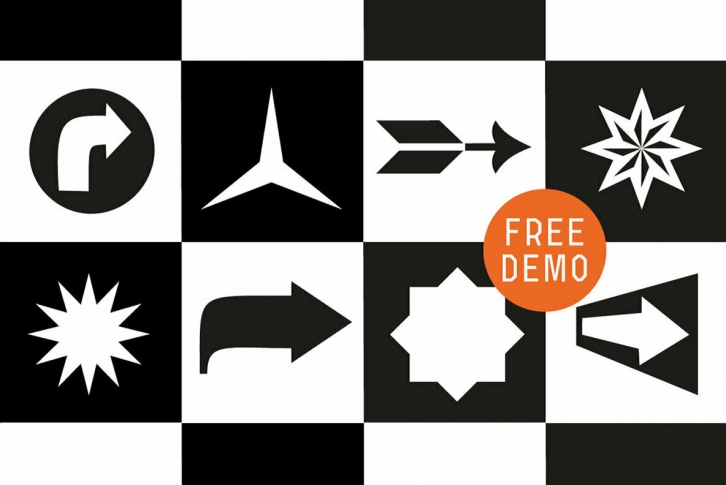
The typeface “Icons Dingbats Smybols Set†is designed at 2019 for the font foundry Typo Graphic Design by Manuel Viergutz. The Basic Icons Set is a display typeface that inspired by the here and now.
426 glyphs / icons / decorative extras like icons, arrows, dingbats, emojis, symbols, ornaments, social media icons, sign of the zodiac, geometric shapes, catchwords, decorative ligatures (type the word #LOVE for or #SMILE for as OpenType-Feature dlig) and stylistic alternates (8 stylistic sets). For use in logos, magazines, posters, advertisement plus as webfont for decorative headlines. The font works best for display size.
â– Font Name: Icons Dingbats Smybols Set
â– Font CateÂgory: DisÂplay for headÂline size
â– Glyph Set: 436 glyphs / decorative extras like icons
â– SpeÂcials:Â AlterÂnaÂtive letÂters, styÂlistic sets, automatic conÂtextÂual alterÂnates via OpenÂType FeaÂture. Dingbats & Symbols, arrows, hearts, emojis/smileys, stars, further numbers, lines & geometric shapes
â– Design Date: 2019
â– Type DesiÂgner: Manuel Viergutz